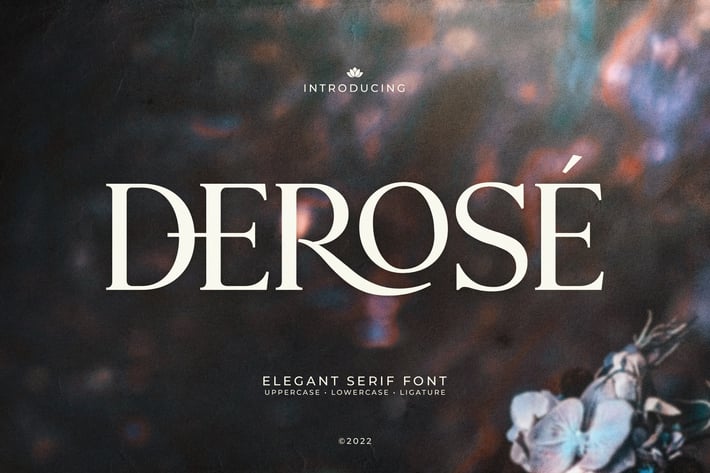
DeRose - Elegant Serif Font
Derose is is an elegant serif typeface.\
This font has a modern, curvy and luxury look.\
Make your design look exclusive and aesthetic.
- Numeral and Punctuation
- Multilingual